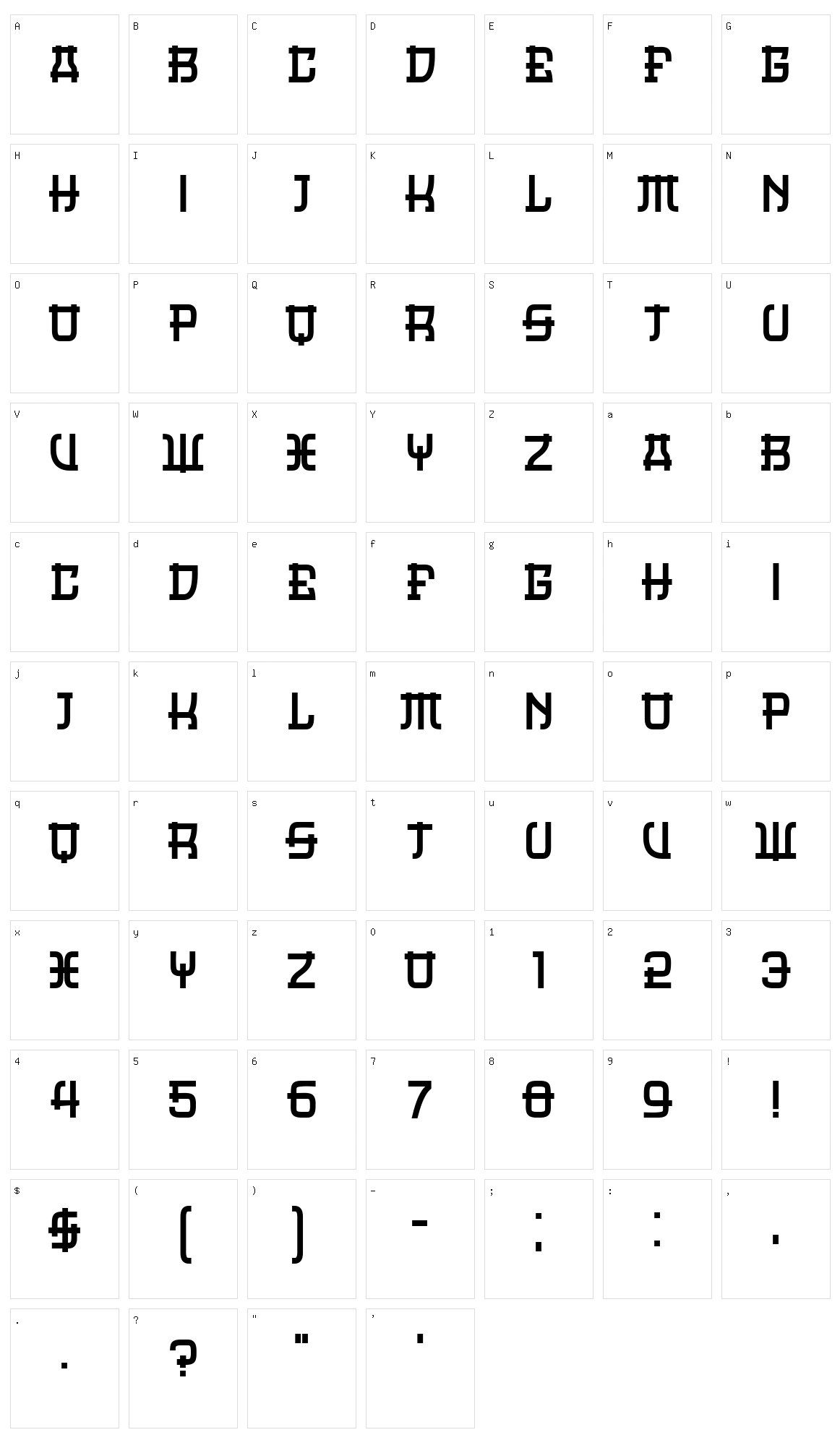
The free font Dasvidaniya Book is carefully designed by Vladimir Nikolic, showcasing a thoughtful balance of creativity and usability and falls under the Russian font style. When you download the ZIP file, it contains only 222.8 KB of font files, making it lightweight and quick to download. Please review the license details below to understand permitted usage and distribution rights. If license information is not available, we recommend using this font for personal projects only or contacting the author directly for commercial usage permissions.